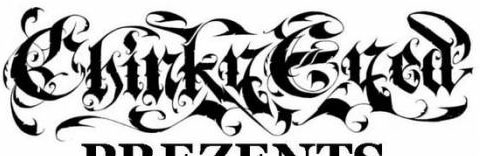
Ok im going to work on a huge project and I need some evil old english type of font here is a example if anyone can help with any names or style such as this that will be Dope********😎 any help is good help!!!!!
That doesn't look as a ready-made typeface but rather a custom made logo. There are many free Gothic/Old English fonts, just do a google search, but you'll have to tweak it a bit too suit your taste and get that evil look.
You can convert the text to outlines in Freehand or Illustrator and add your own style to it.
*EDIT - Check the Gothic>Medieval category in dafont.com, there are some that suit your style in there. 😉